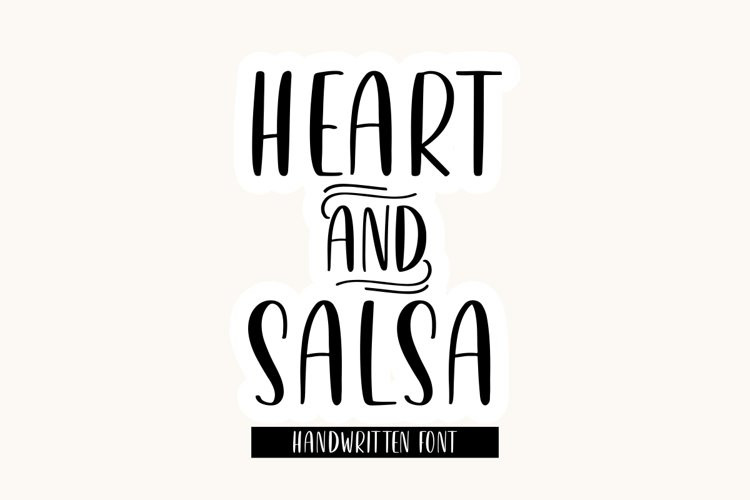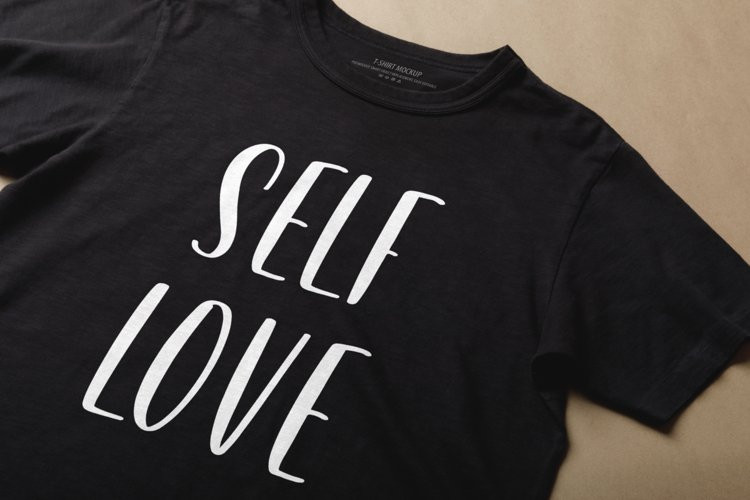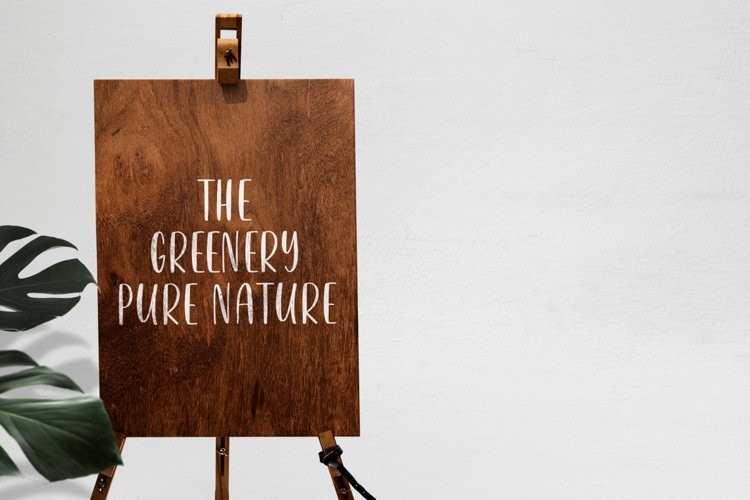
Heart & Salsa Font
Heart & Salsa FontHeart & Salsa – Font is a new stylish Display font. It’s perfect for logo, branding, title, social media posts, advertisements, product packaging, product designs, label, photography, watermark, special event, magazine, web designs, etc. If you have any questions please don’t hesitate to contact me.